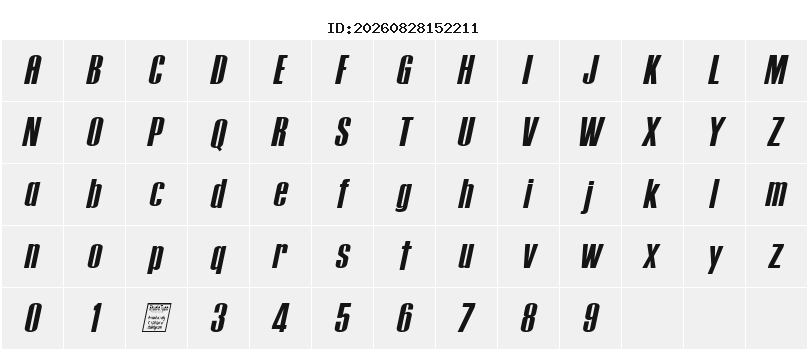
• Font Name: Tipo PRESS
• Full Font Name: Tipo PRESS Italic
About Tipo PRESS.otf
Tipo PRESS.otf is a modern, elegant sans-serif font designed for ultimate readability and visual harmony. Perfect for branding, headlines, web design, and print materials.